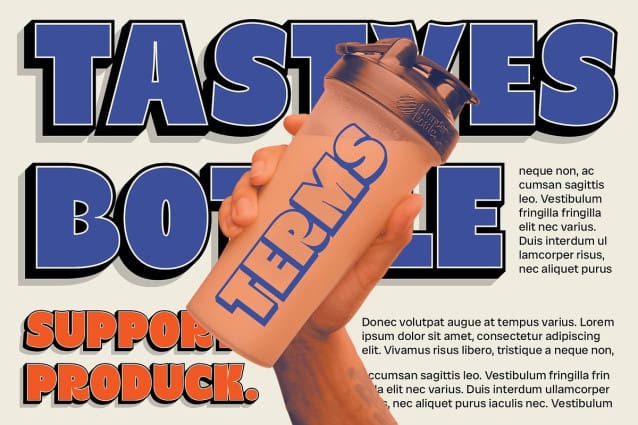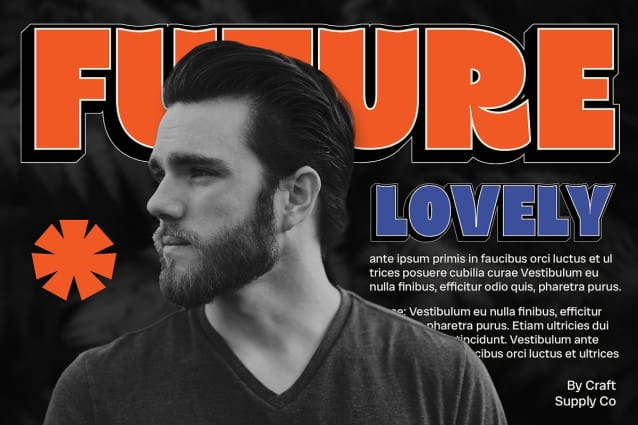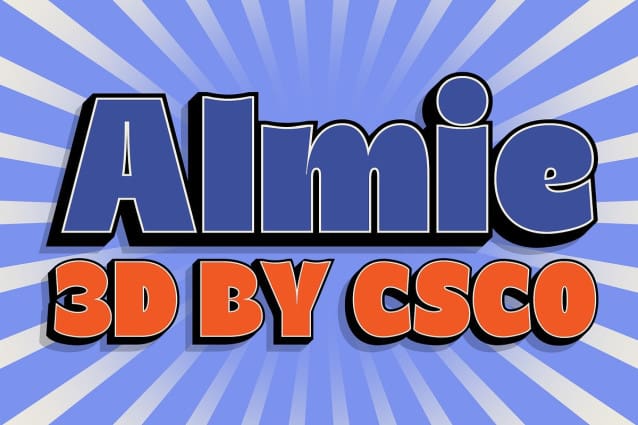
Almie 3D Font
Almie 3D Font is a bold sans-serif font with a funky feel and a 3D effect, combining boldness and uniqueness in design. Its standout letter characteristics and eccentric style create a striking and attention-grabbing look.
Almie 3D is suitable for designs that aim to convey a bold and distinct impression. Whether you’re designing a poster, a logo, or a website, Almie3D can help your message stand out and grab attention.
The 3D effect of Almie 3D adds an extra visual dimension, making it more prominent and dynamic. Its unique combination of boldness, funkiness, and 3D effect makes it a standout choice for designers looking to add a touch of creativity and modernity to their projects.
Elevate your designs with Almie 3D, where boldness meets funkiness in a dynamic and unique font. Its striking design features make it perfect for projects that demand attention and want to make a bold statement.